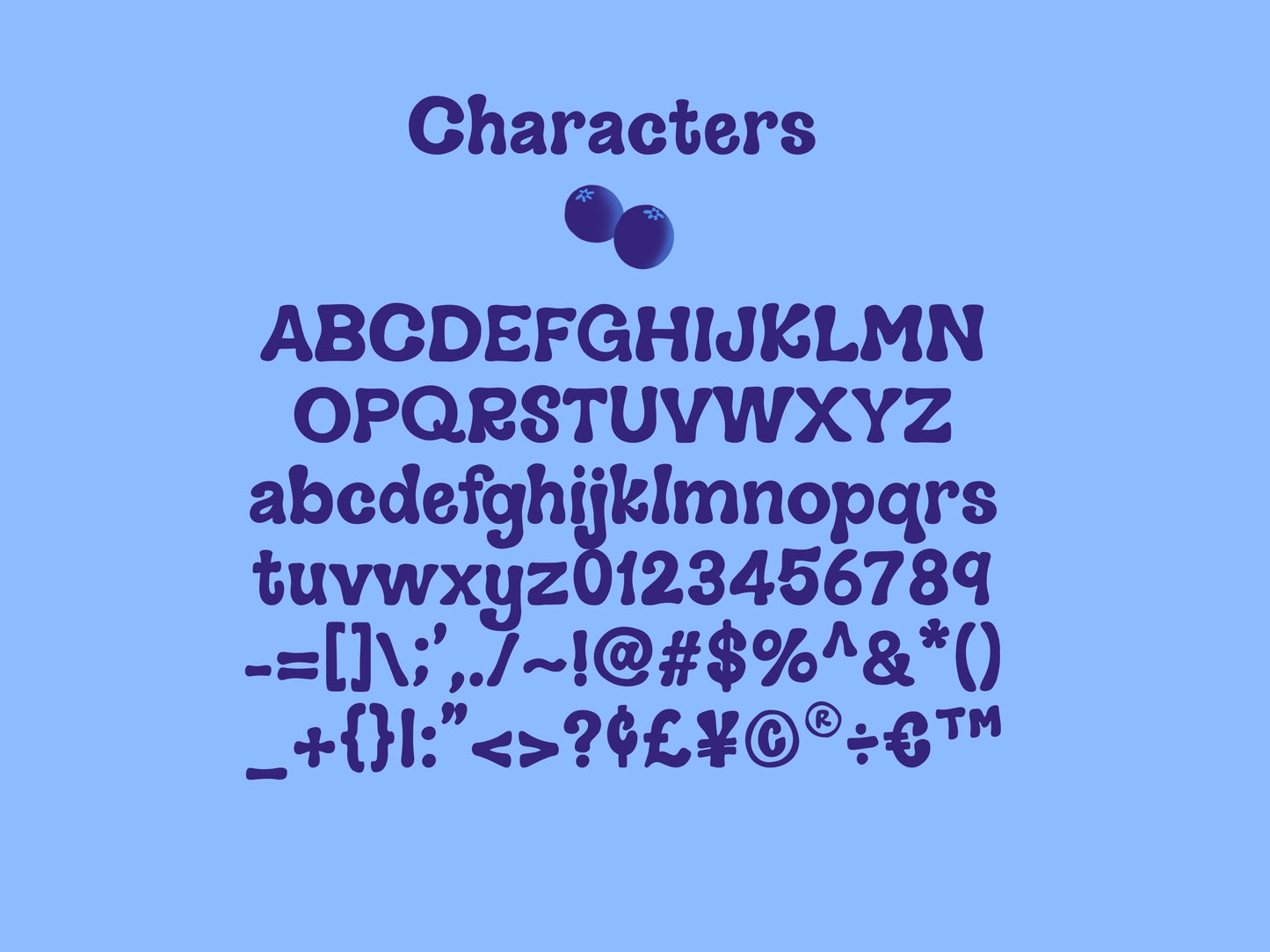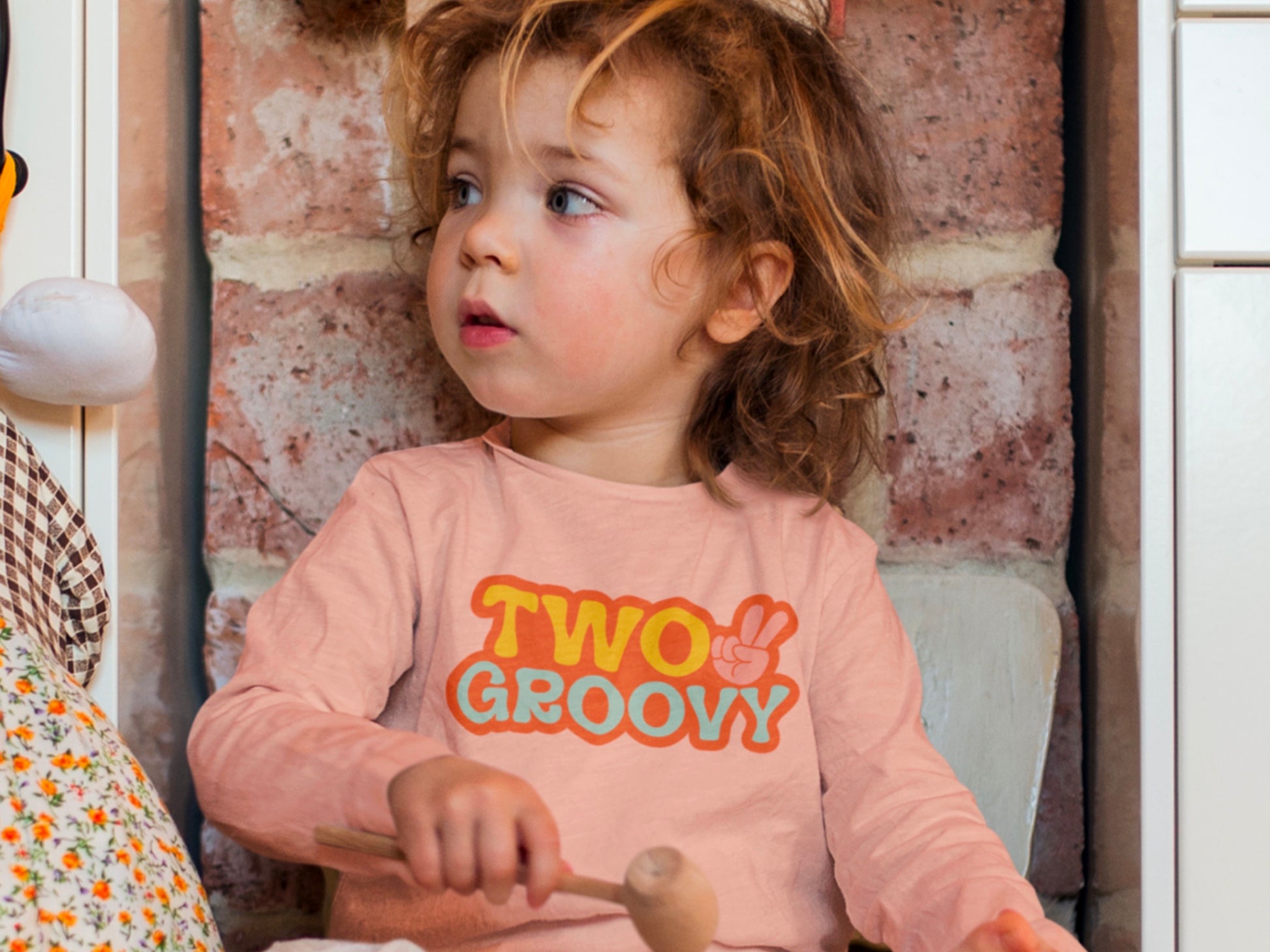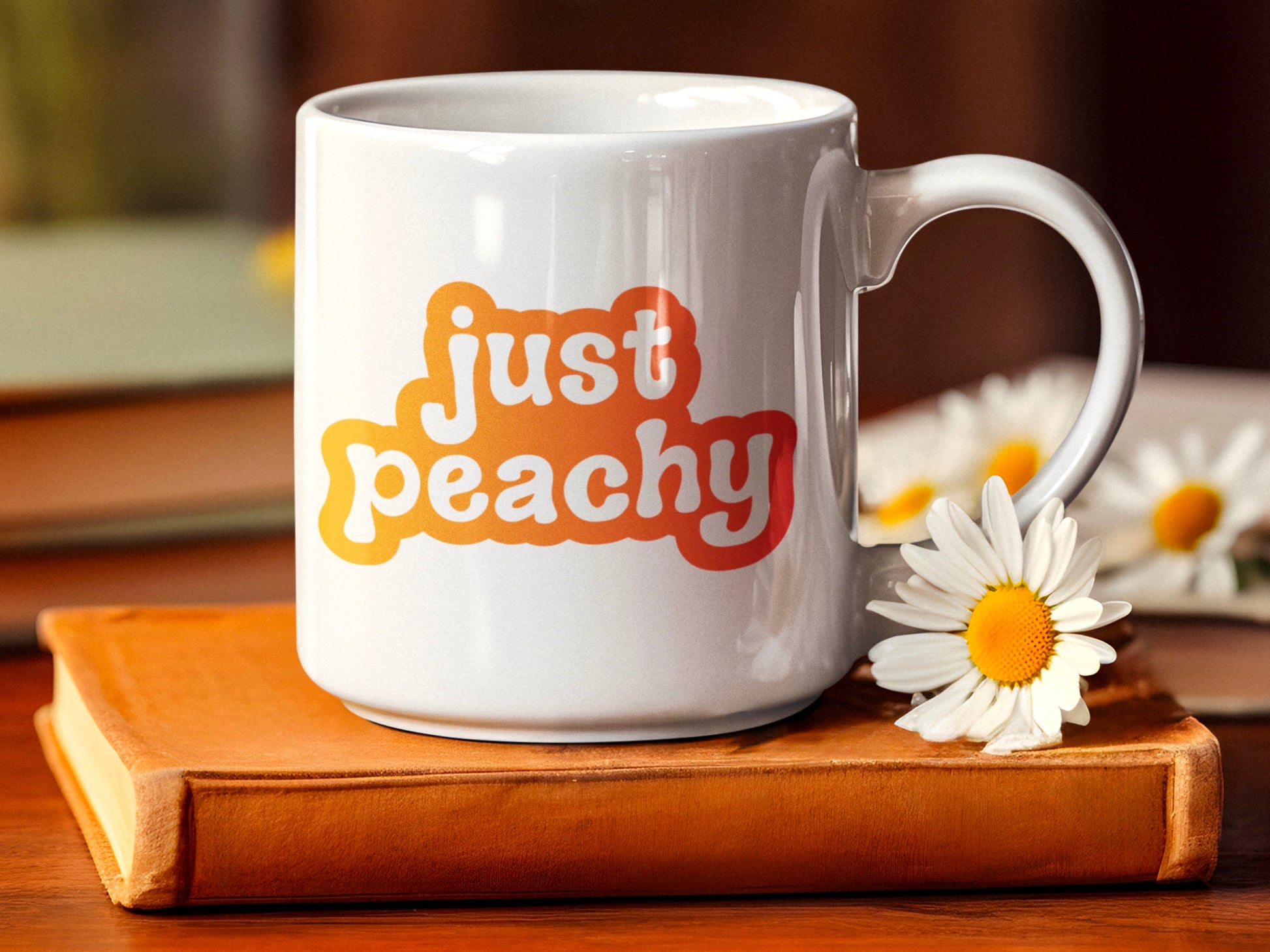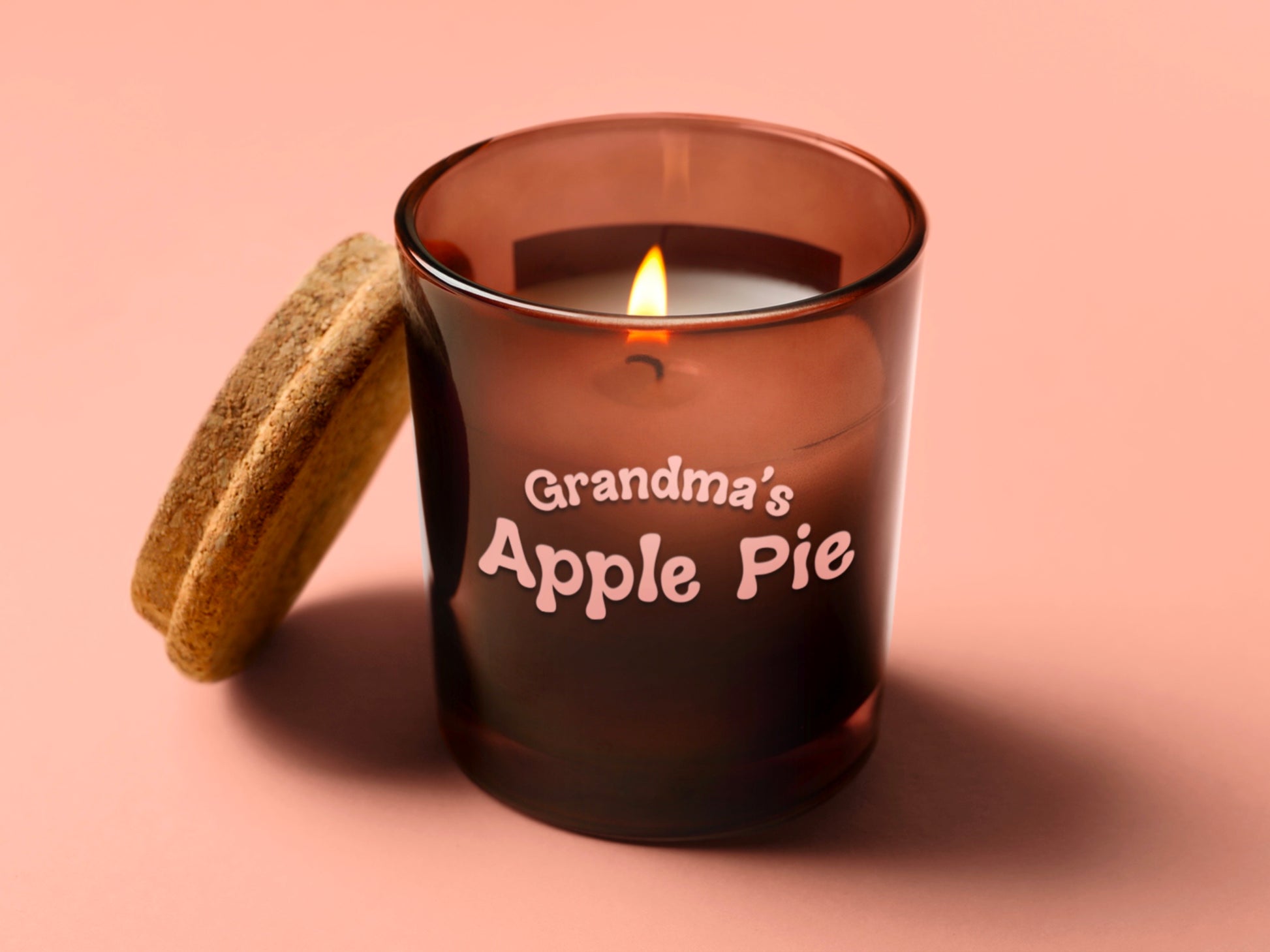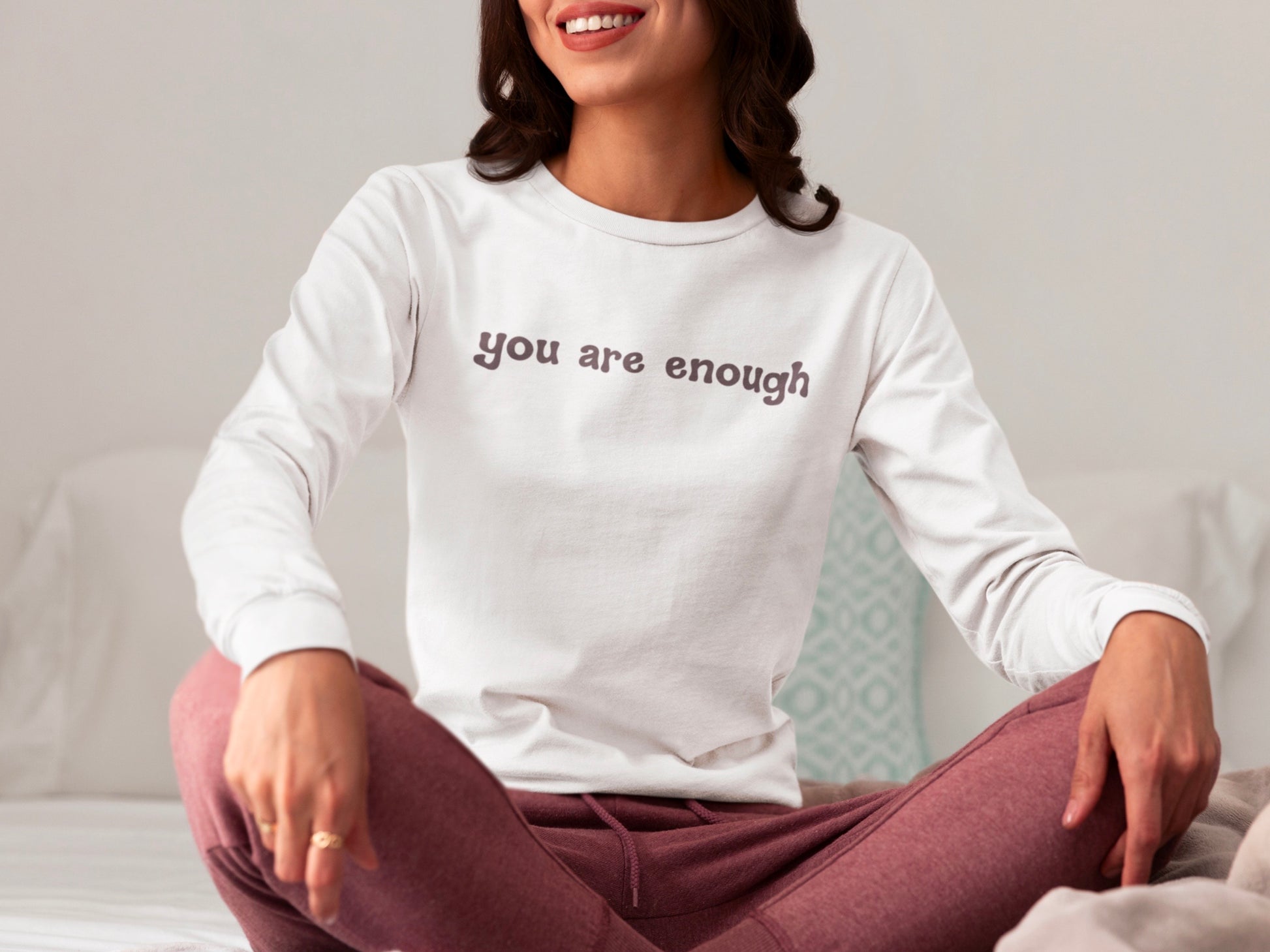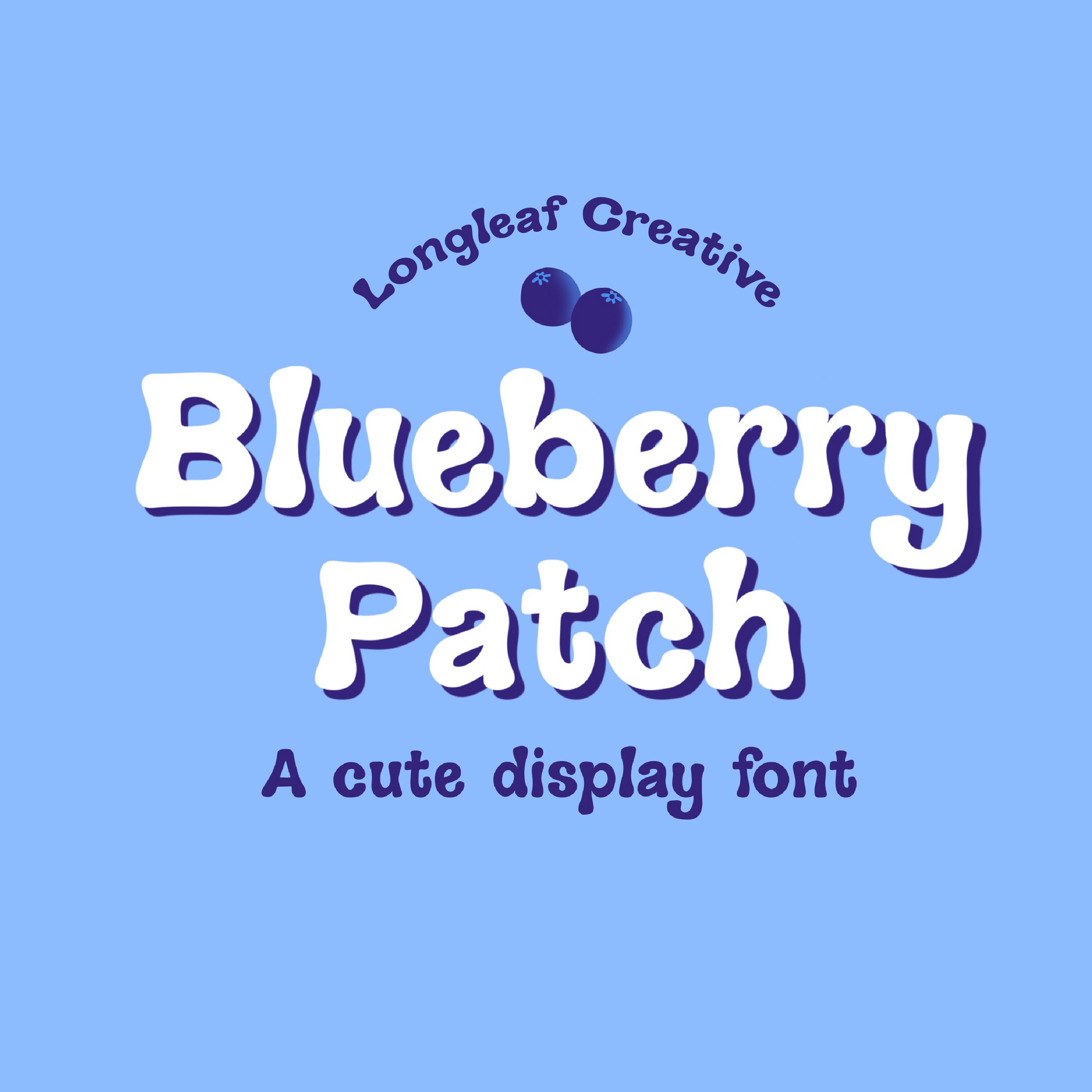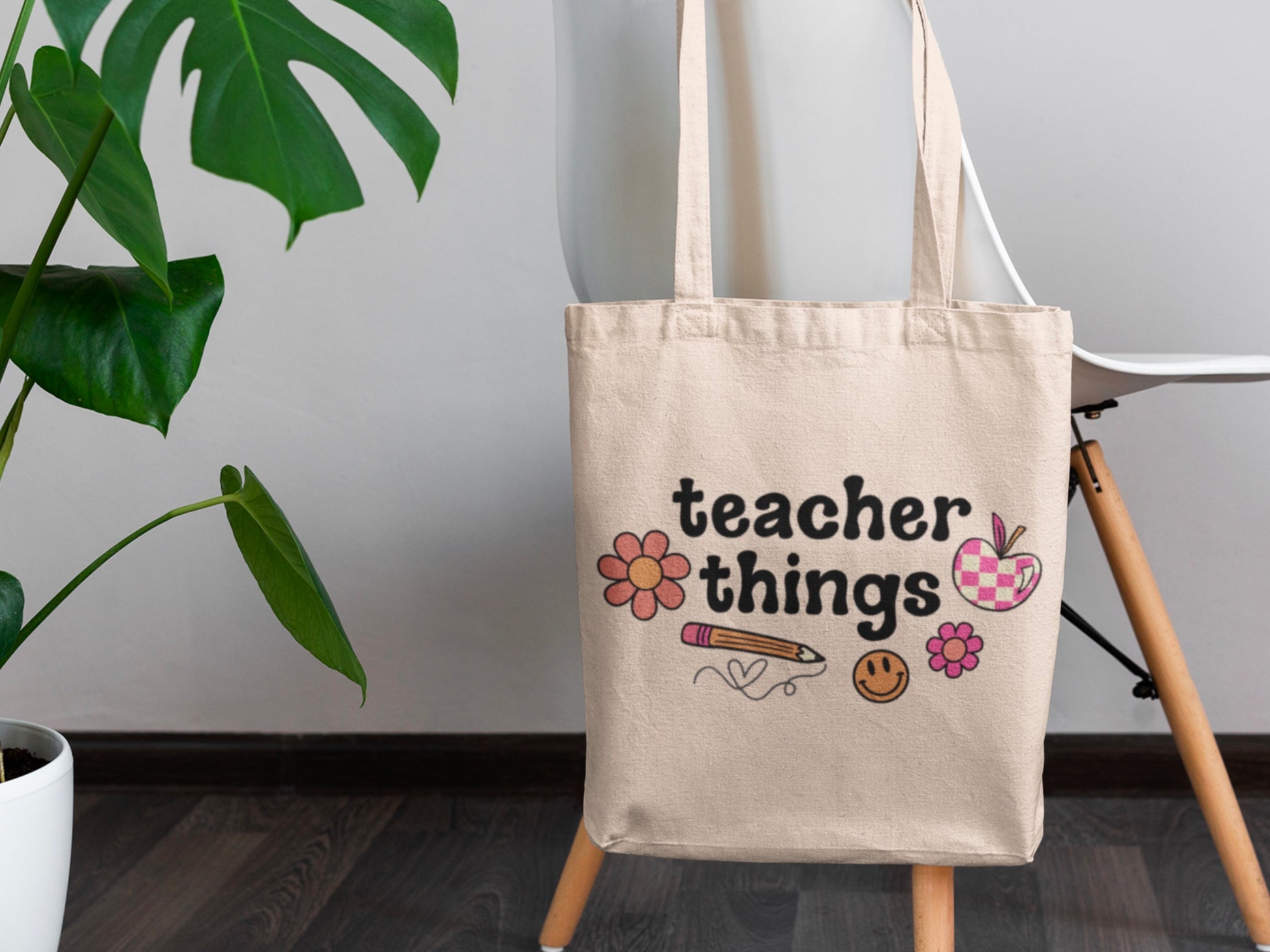
Blueberry Patch Handwritten Font
This is a cute handwritten font perfect for vinyl cutting projects, marketing materials, t-shirts, stationery, and other product designs!